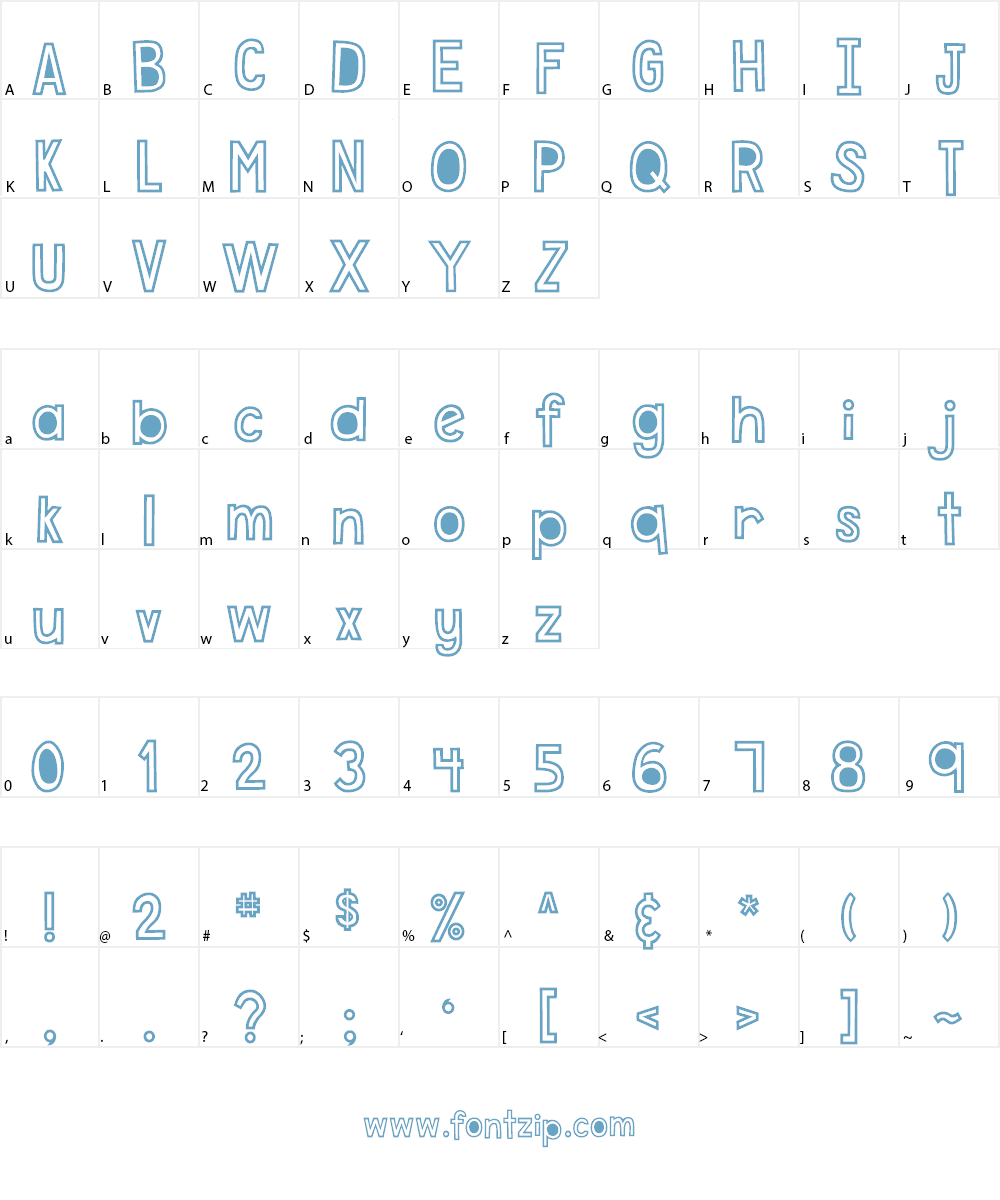
A mixed weight, cut out font that is wonky and unexpected. Great for school projects and art displays. Contains language characters for western European languages.